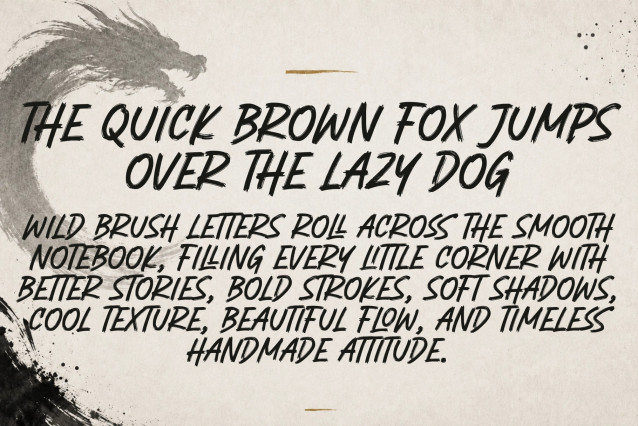
Dragnoss – Bold Handbrush Font
Dragnoss Font is a bold handbrush font with raw energy, sharp movement, and a powerful handmade feel. Perfect for logos, posters, packaging, apparel, branding, and any design that needs a strong, expressive character.